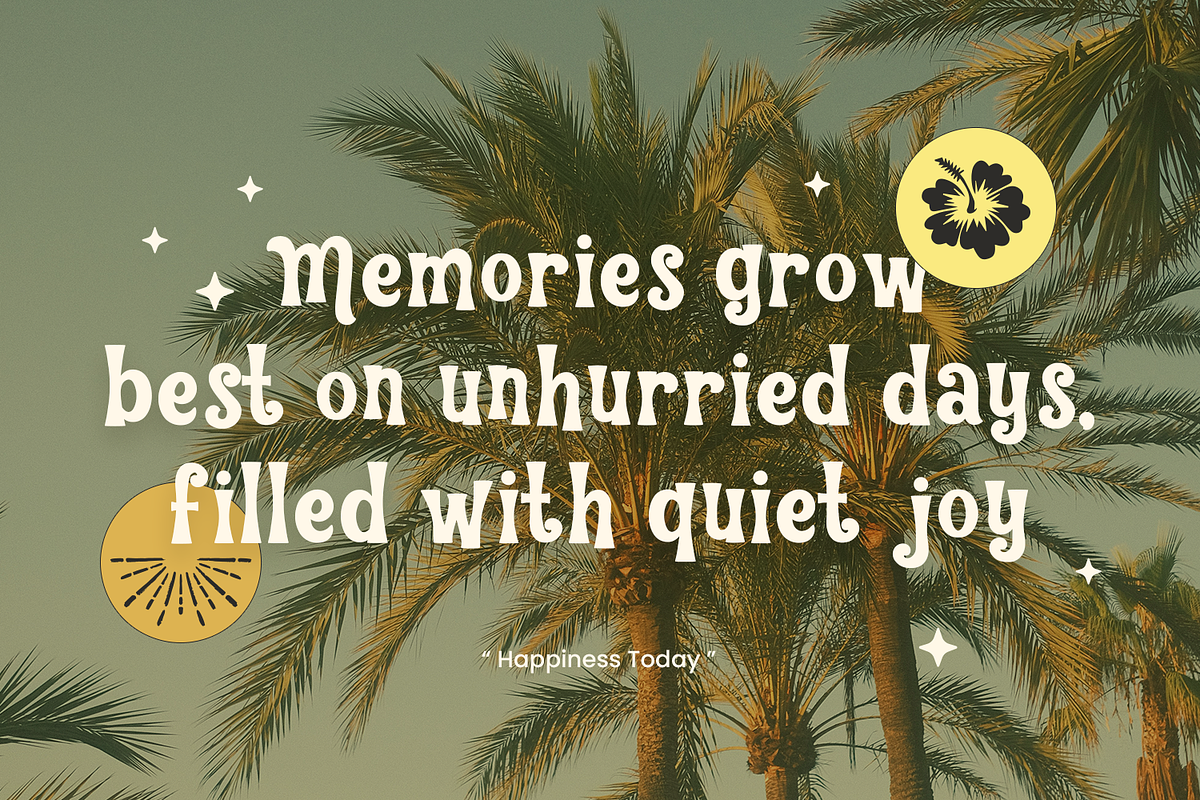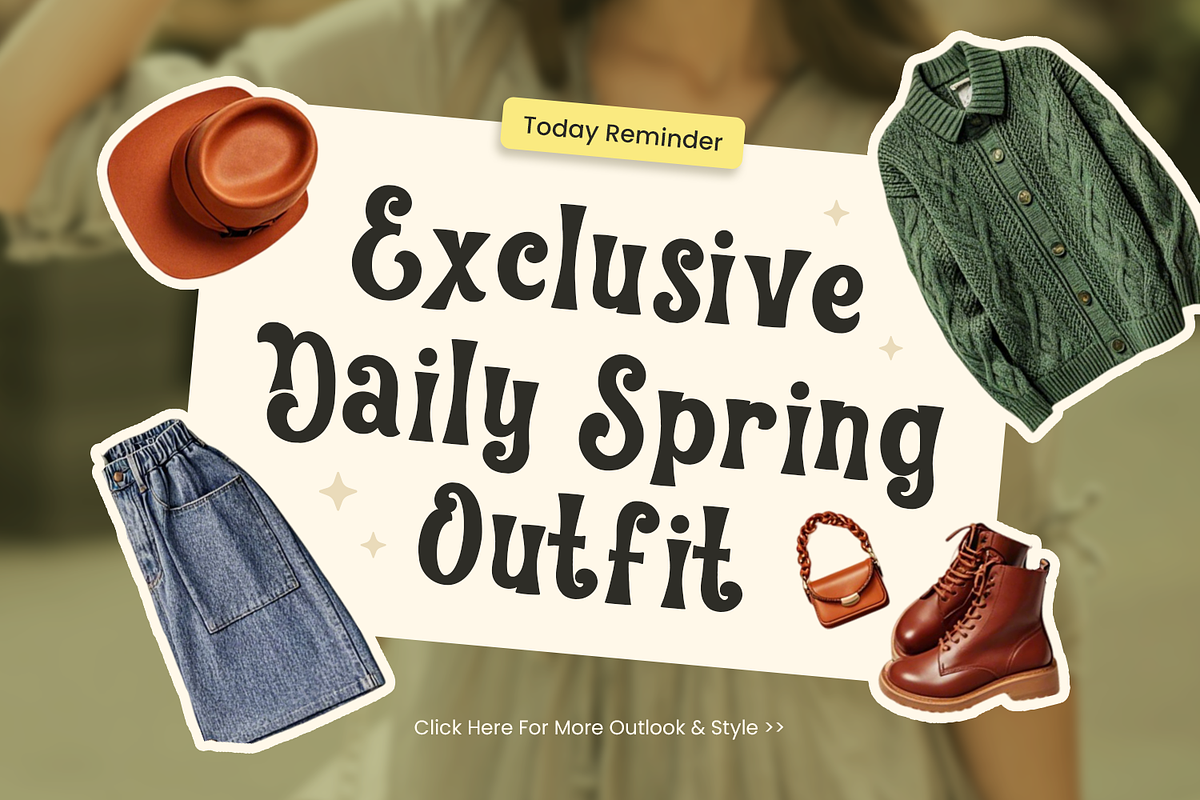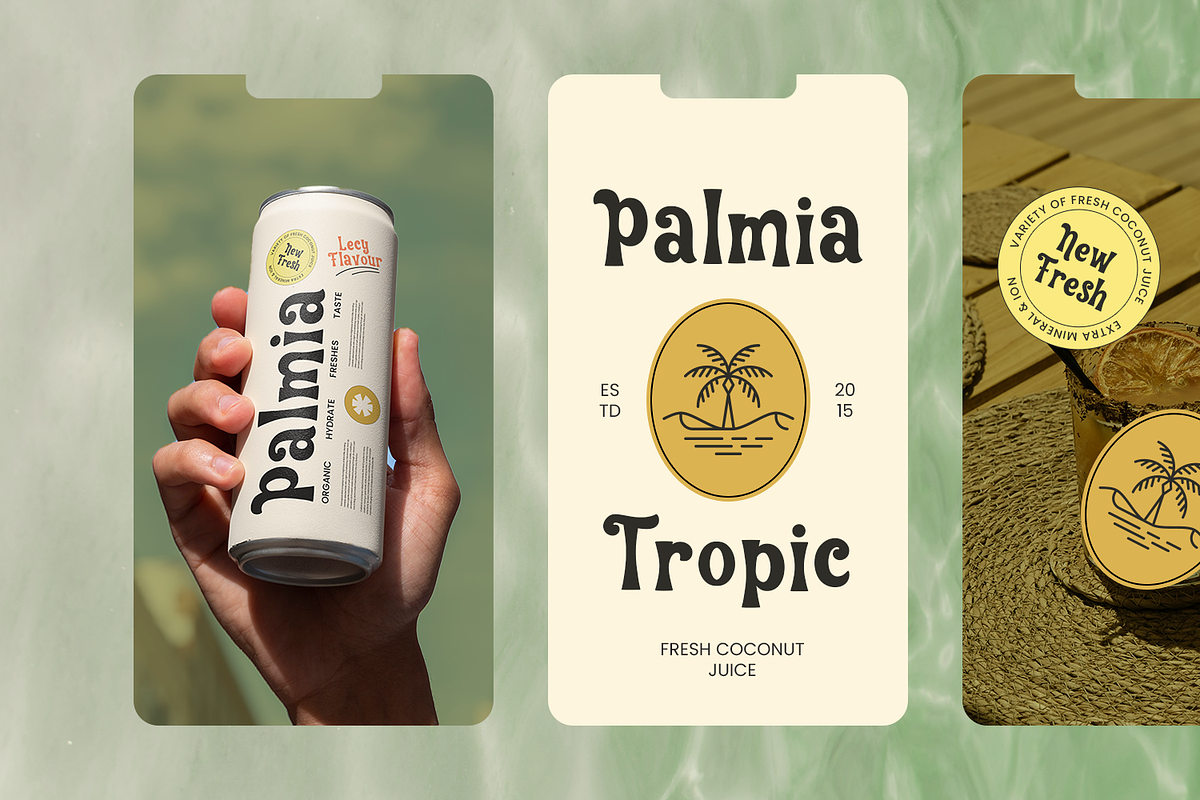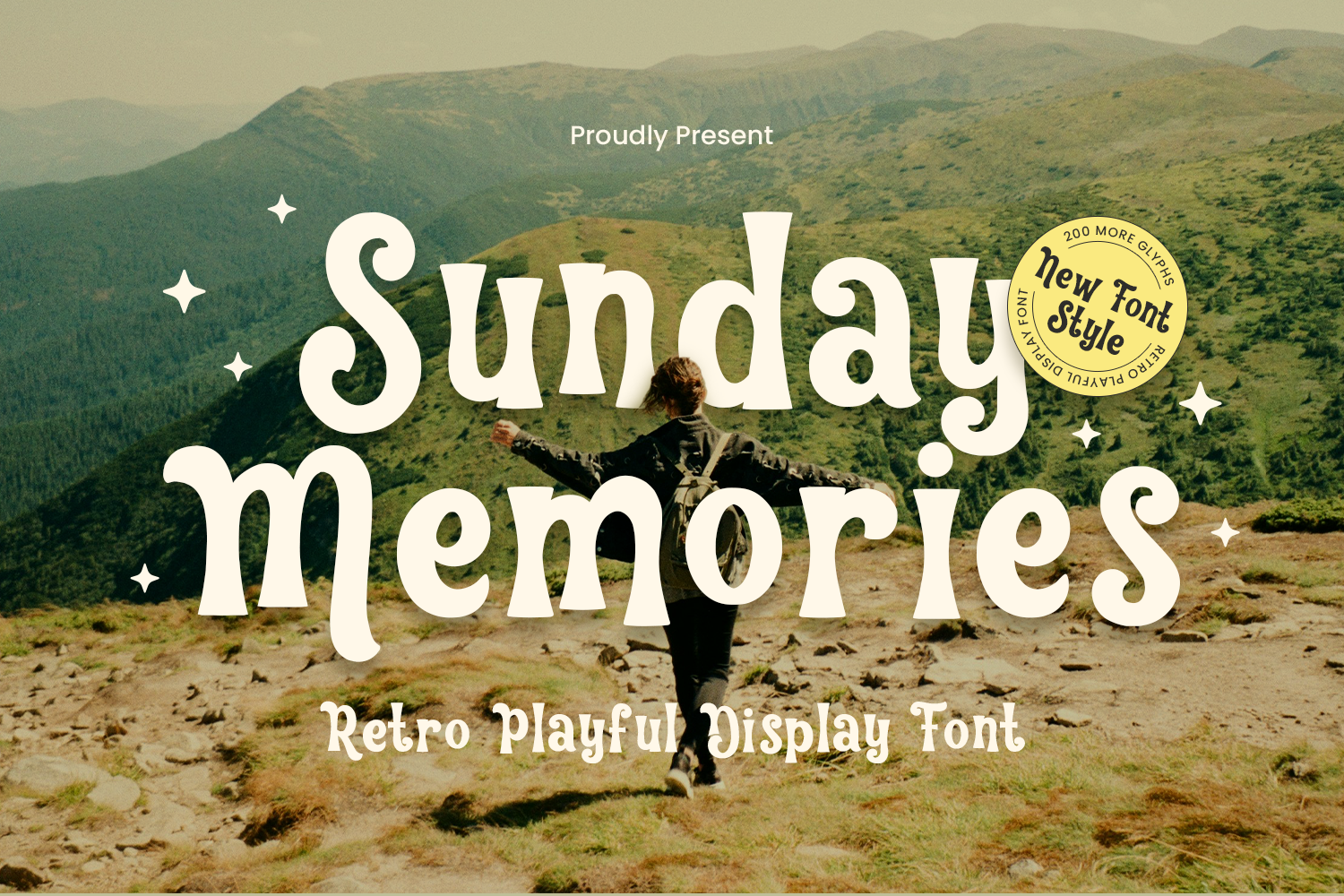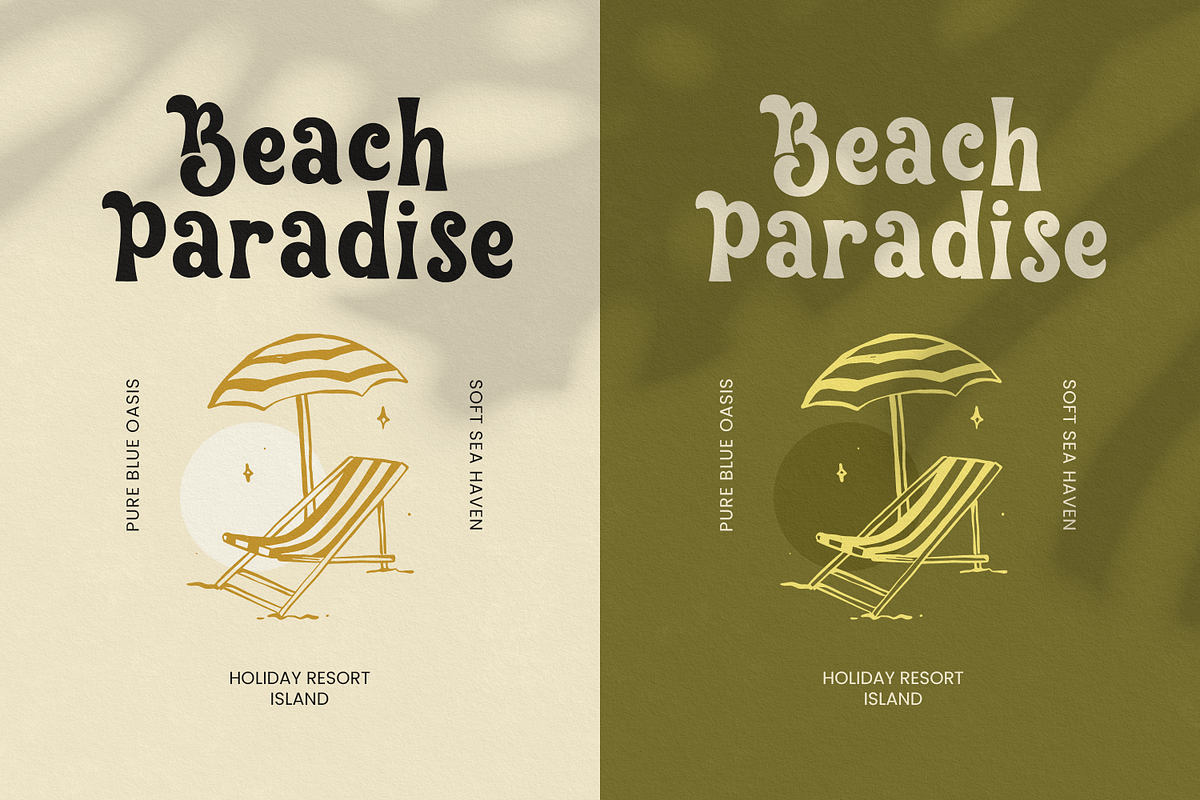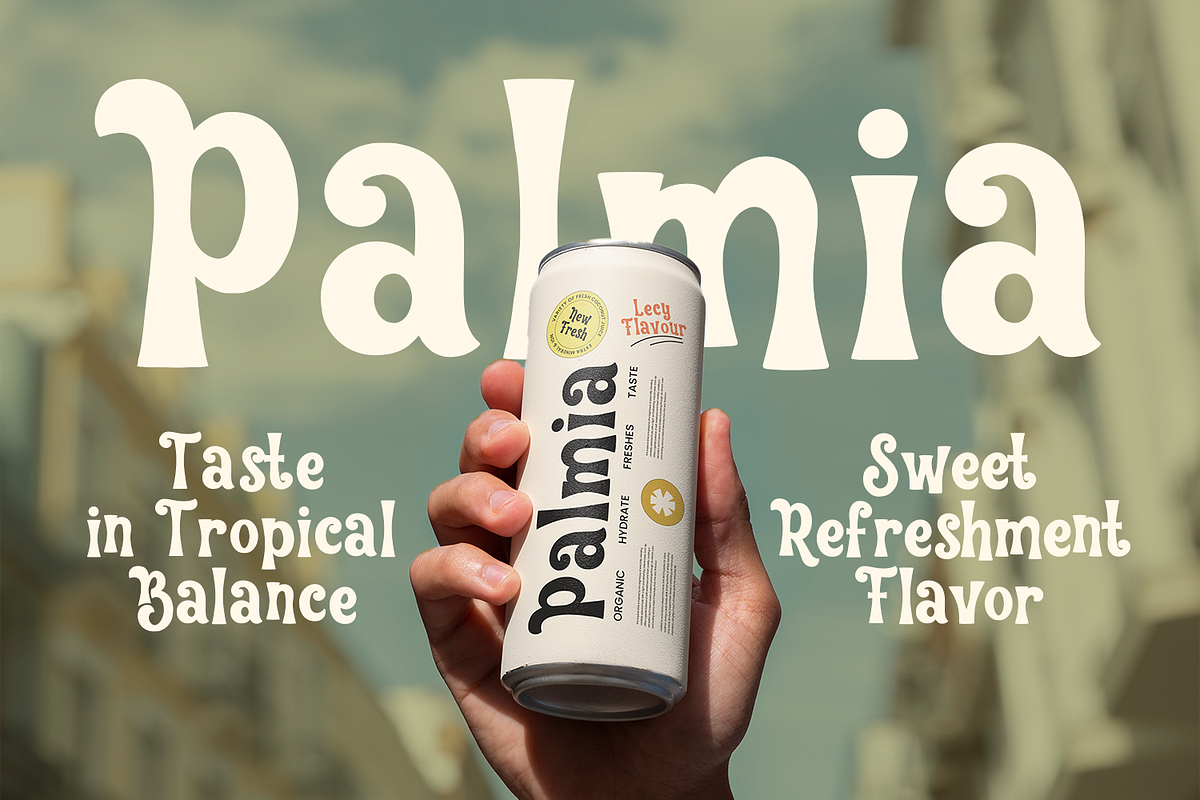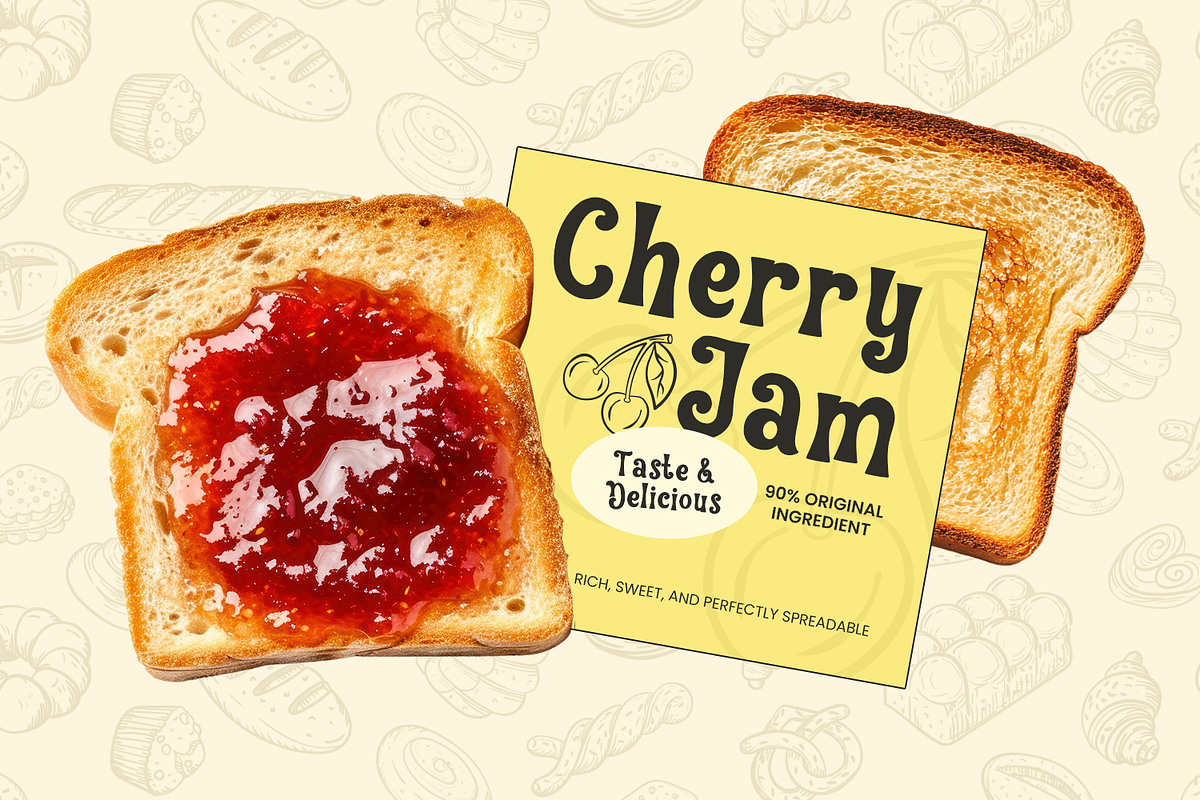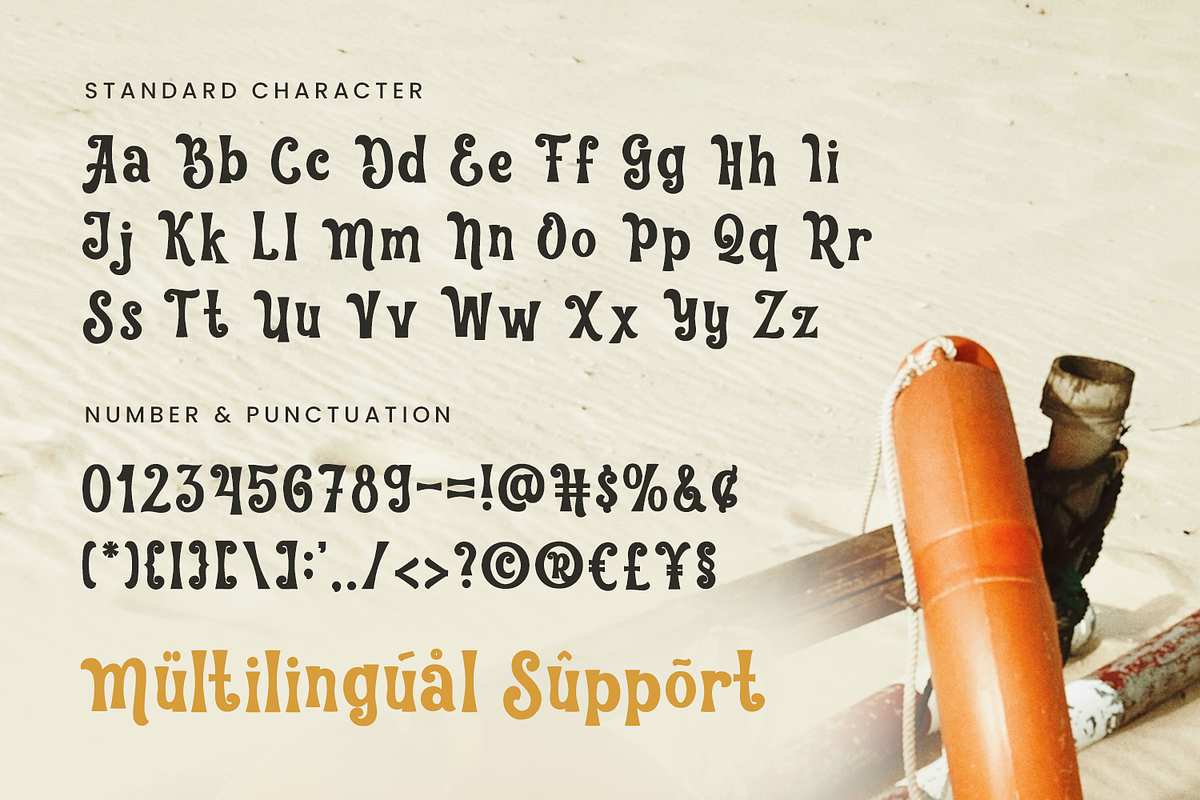
Sunday Memories - Quotes Font
Sunday Memories – Quotes Font
Sunday Memories is a cute and heartwarming quotes font designed to bring joy, warmth, and positivity to every design. Featuring playful letterforms and charming details, this font captures the cozy feeling of peaceful Sundays, treasured moments, and meaningful memories.
Crafted with a fun and expressive display style, Sunday Memories combines cheerful personality with excellent readability. Its soft curves and friendly shapes create a welcoming appearance, making every word feel personal, uplifting, and full of emotion. Whether used for inspirational quotes or creative messages, this font adds a delightful touch to every composition.
Inspired by cozy weekend moments, handwritten notes, and happy memories shared with loved ones, Sunday Memories delivers a relaxed and joyful atmosphere. The unique character design allows your typography to stand out while maintaining a warm and approachable feel.
Sunday Memories is perfect for a wide variety of creative applications, including quote designs, greeting cards, invitations, posters, journals, planners, and social media graphics. Its charming personality makes it especially suitable for projects that aim to inspire, motivate, or celebrate meaningful moments.
This font also shines in seasonal and handmade creations. It works beautifully with autumn, Thanksgiving, and cozy lifestyle themes, while also being ideal for Cricut projects, SVG designs, stickers, scrapbooking, wall art, and DIY crafts. Whether used for digital or print projects, Sunday Memories brings softness, happiness, and creativity to every design.
Cute Quotes Style Playful and expressive letterforms designed for meaningful messages.
Warm & Cheerful Design Friendly characters that create a joyful and inviting atmosphere.
Readable & Decorative Easy to read while maintaining a fun and unique personality.
Versatile Creative Use Suitable for both everyday and seasonal creative projects.
Craft-Friendly Design Perfect for Cricut, SVG, DIY, and handmade creations.
Multilingual Support Extended character set for global creative applications.
Create Designs Filled with Warmth and Joy
If you're looking for a font that combines cute charm, heartfelt expression, and playful creativity, Sunday Memories is the perfect choice. Its warm personality and cheerful style help create designs that feel personal, memorable, and truly special.